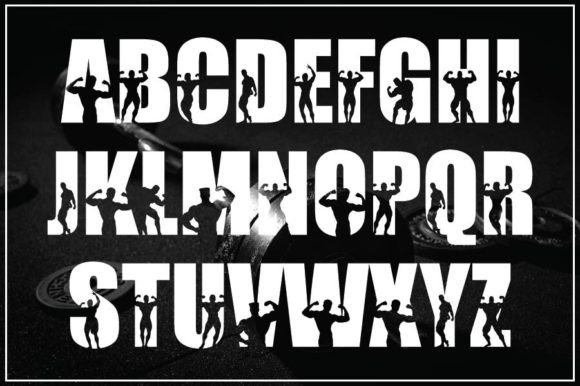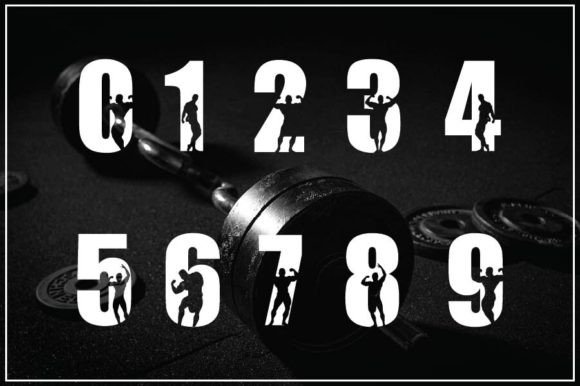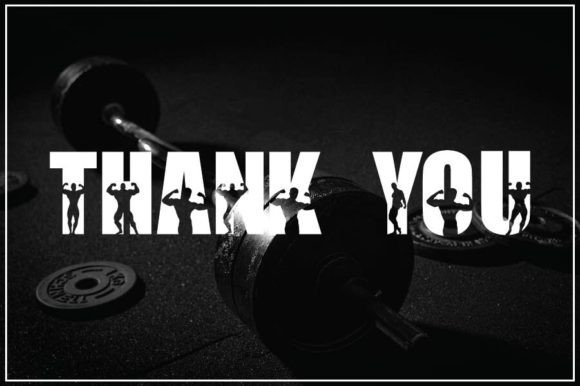
Gym Up Your Design Game with the Perfect Font
There’s something special about the moment when a design idea finally comes together – the rush of excitement, the satisfaction of seeing your vision take shape. For designers, this moment is a reminder of why we do what we do: to create something beautiful and meaningful. And that’s exactly what the Gym Font can help you achieve.
This dramatic decorative font is the perfect addition to any design or crafty project. With its bold, eye-catching style, Gym Font adds a touch of sophistication and flair to even the most basic designs. Whether you’re working on a logo, a poster, or a social media graphic, Gym Font is the perfect choice to elevate your design game.
So why is Gym Font so valuable for designers? It’s simple: with Gym Font, you can add a professional, high-end look to your designs with minimal effort. Its versatility makes it suitable for a wide range of projects, and its dramatic style is sure to grab attention.
Gym Font Key Features
- Font Family: A sans-serif font designed specifically for fitness and sports-related applications, providing a clean and modern look.
- Unique Characteristics: Includes custom-designed glyphs for fitness-related icons, such as weights, dumbbells, and exercise equipment, adding a touch of professionalism to any fitness-related design.
Gym Font Review
I recently had the chance to work with Gym Font, a bold and modern sans-serif typeface designed specifically for the fitness and sports industries. Overall, I was impressed with its capabilities, but as with any font, there are some limitations to consider.
- High-energy feel: Gym Font perfectly captures the dynamic and motivational vibe of the fitness world.
- Wide range of weights: The font offers a variety of weights, from light to bold, making it versatile for various applications.
- Good legibility: Despite its bold appearance, Gym Font remains clear and easy to read, even at smaller font sizes.
- Limited language support: Gym Font may not be suitable for non-English language projects due to its design and character set limitations.
- May not be suitable for body text: While Gym Font is perfect for headlines and titles, it might not be the best choice for large blocks of body text due to its bold and attention-grabbing nature.
Overall, Gym Font is a great choice for fitness and sports-related projects where a bold and motivational feel is desired. However, it’s essential to consider its limitations and use it thoughtfully to ensure the best results.
Tips for Getting the Most Out of Gym Font
For optimal results, use Gym Font in conjunction with bold or italic text to add emphasis and create a visually appealing design.
Experiment with different font sizes and colors to create a cohesive and engaging visual identity.
Gym Font is commonly used in fitness and wellness branding, such as gym logos, fitness apparel, and health-related marketing materials.
It can also be used in creative and modern designs, such as posters, flyers, and social media graphics.